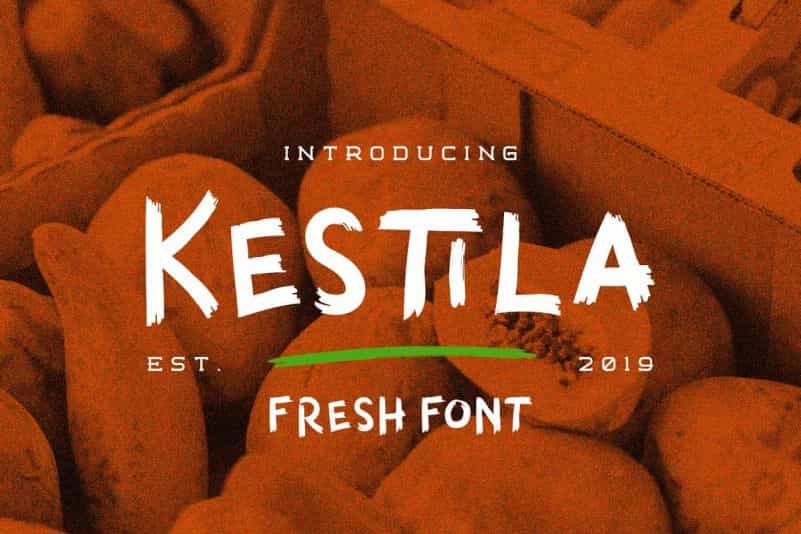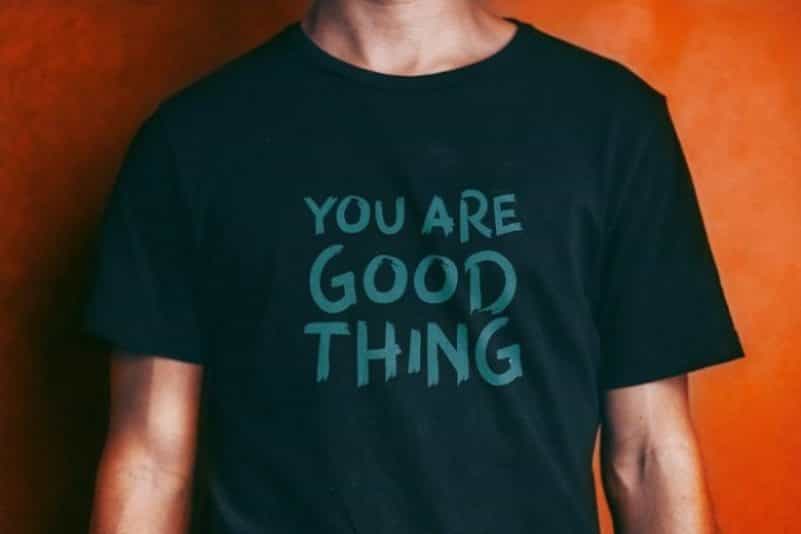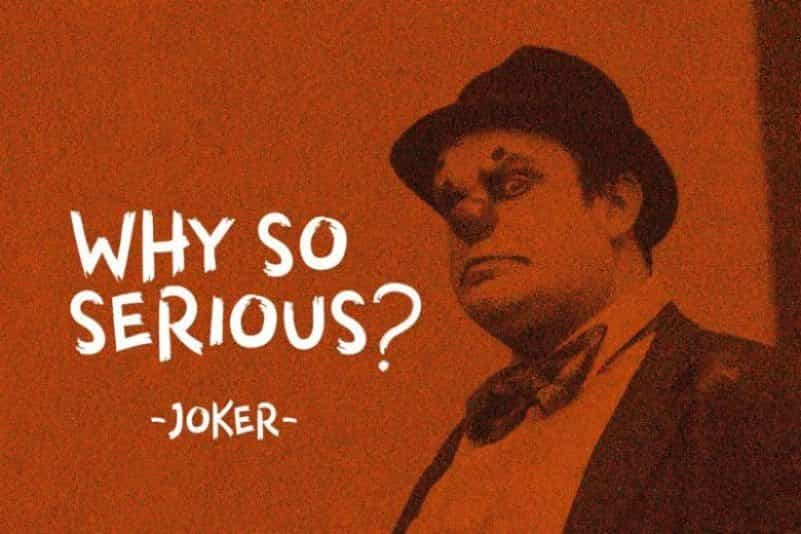
Kestila Font – It is a type of Natural Brush Font. Perfect for the food poster, logo design, music album art, clothes and other numerous cool design works.